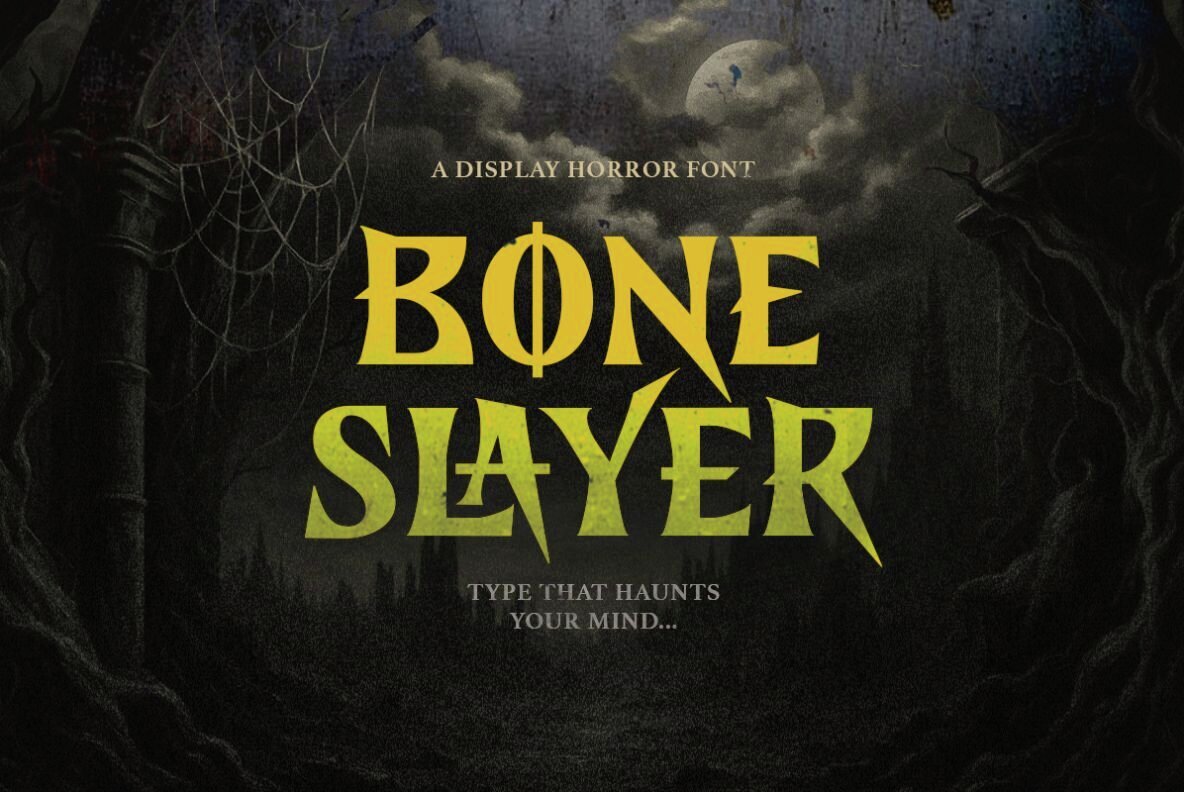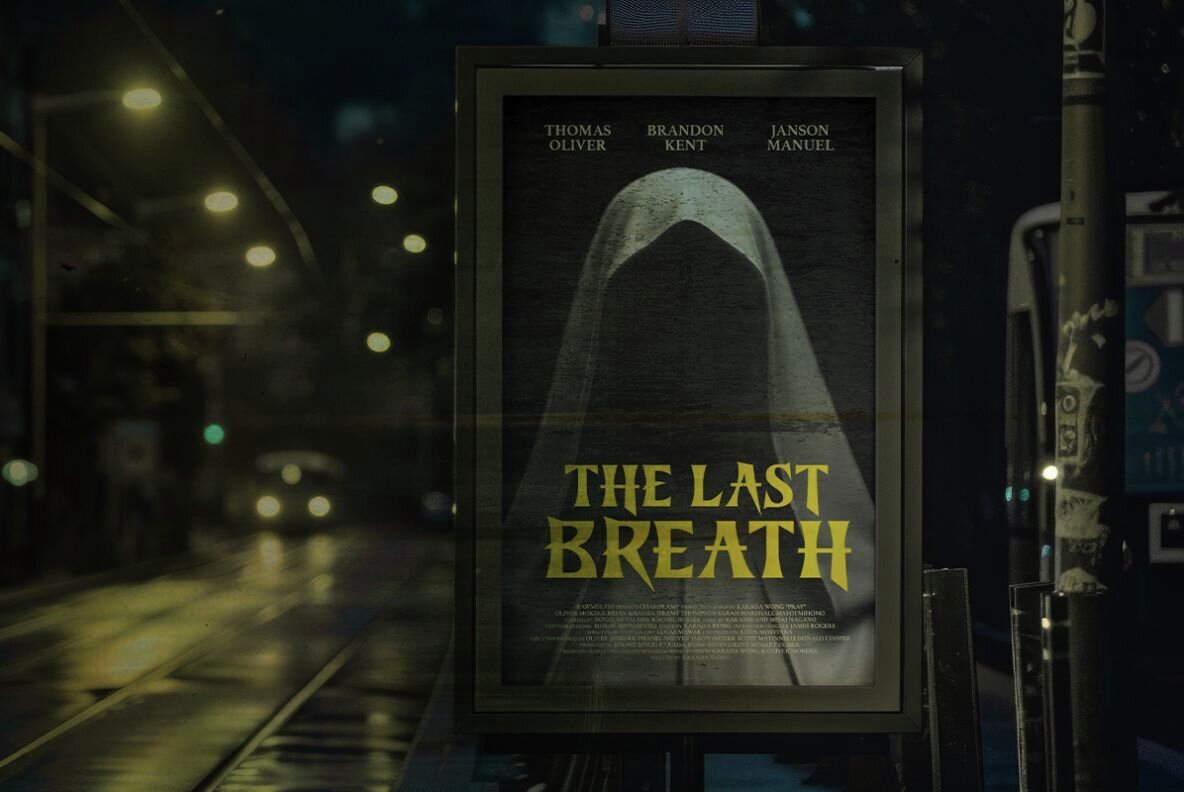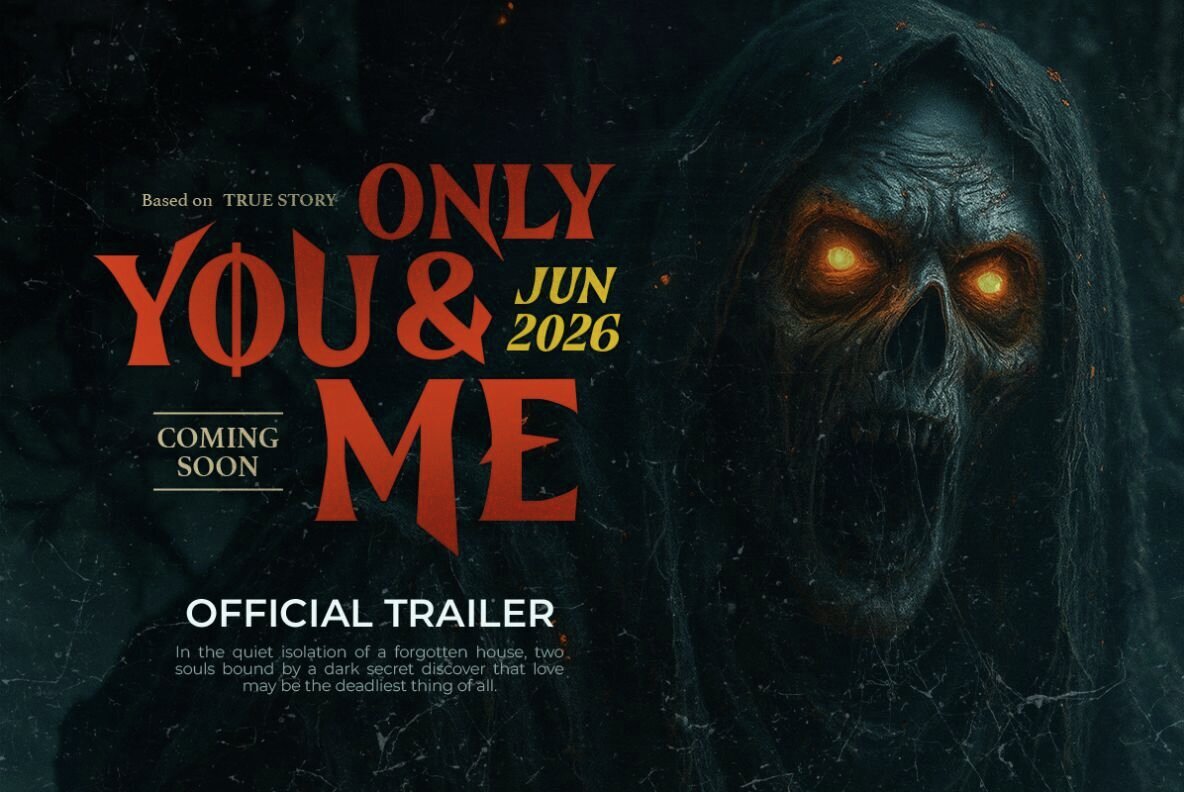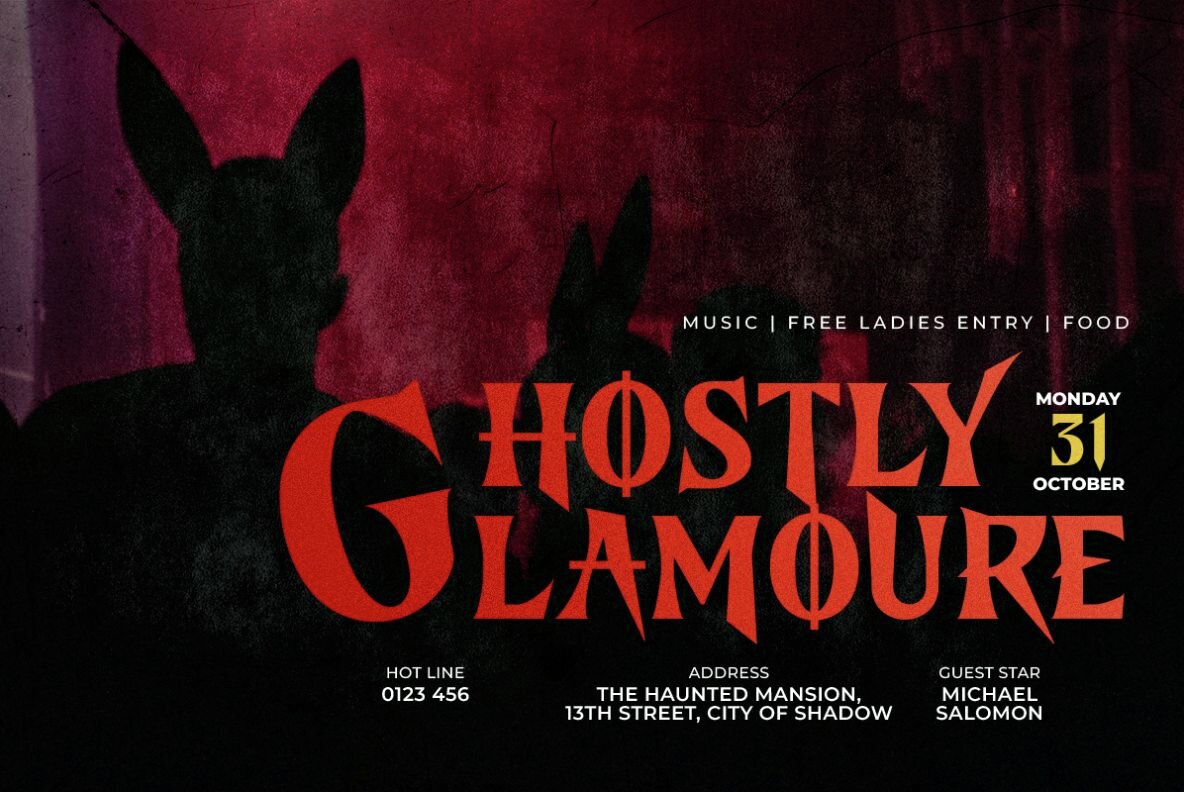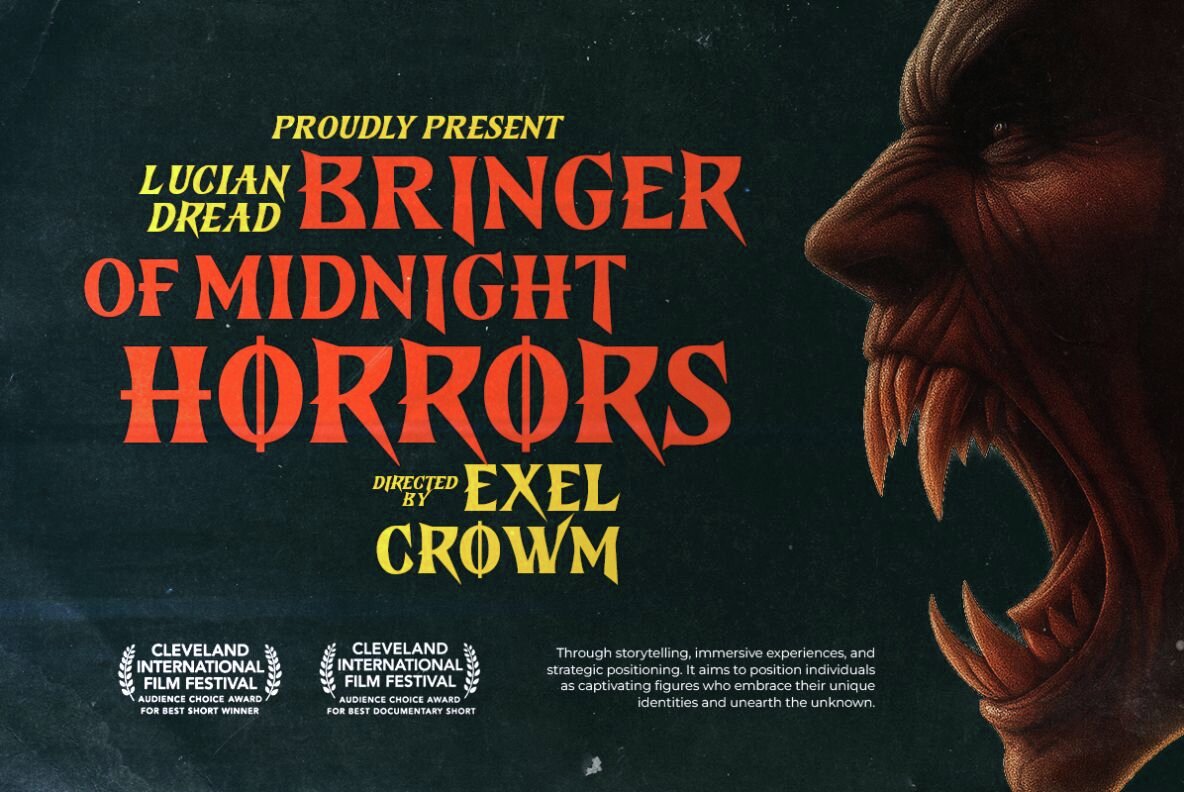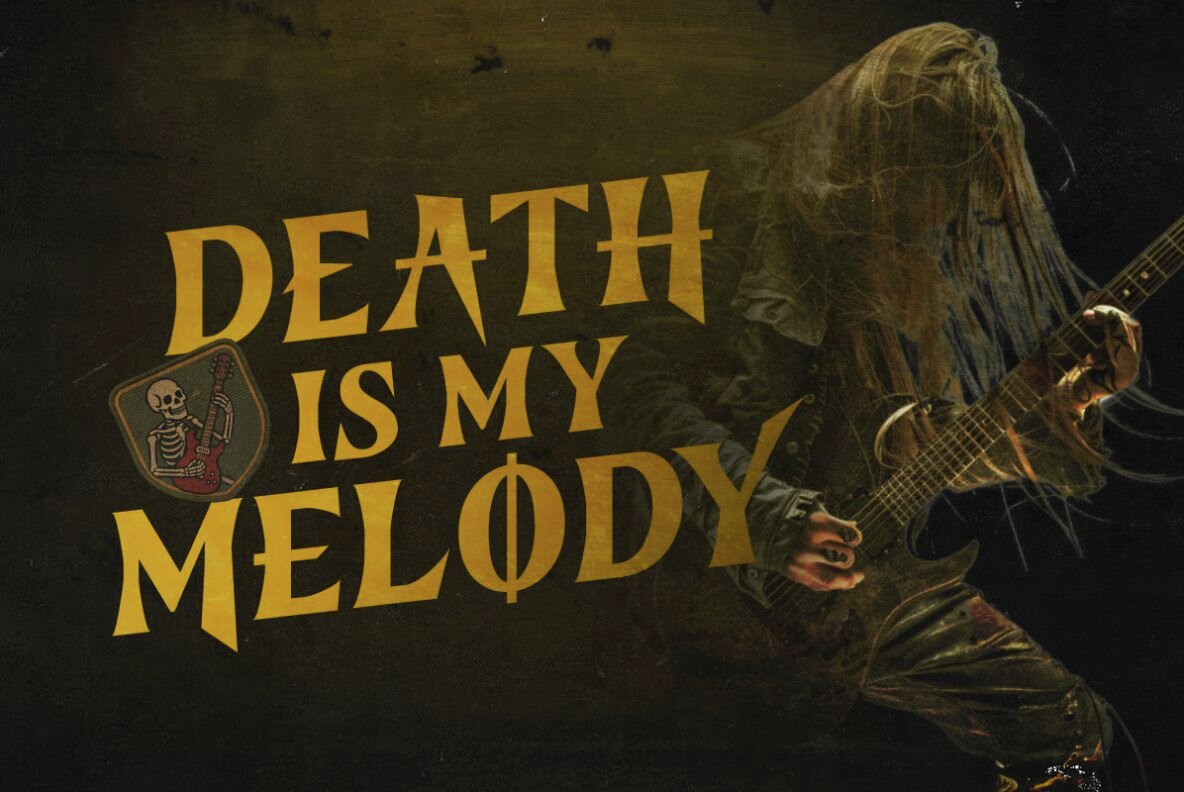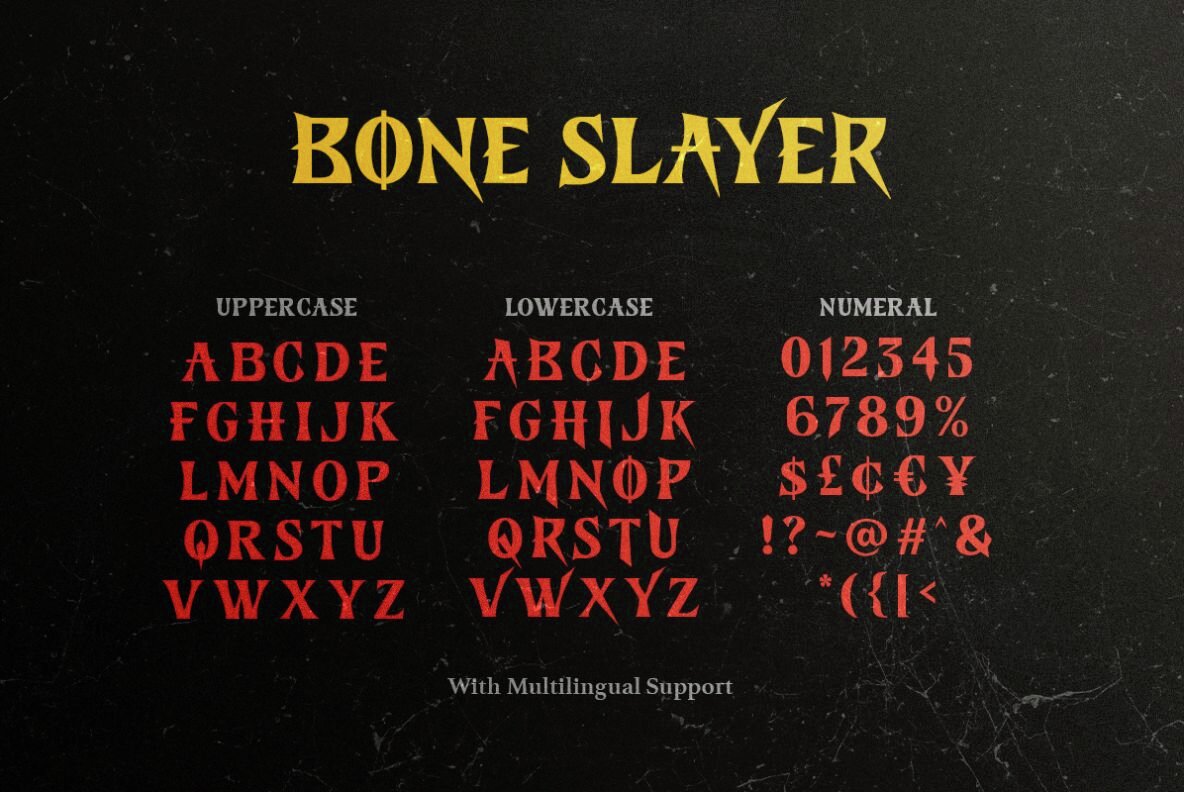
Bone Slayer Font
Bone Slayer Regular
Bone Slayer Italic
Unleash the eerie vibes with Bone Slayer, a serif-based font that melds classic elegance with spine-chilling horror. Perfect for projects needing a bold and piercing aesthetic, this font commands attention and adds an unsettling edge to your designs.Bone Slayer: The Powerfully Creepy Serif
Versatility for Spooky Projects